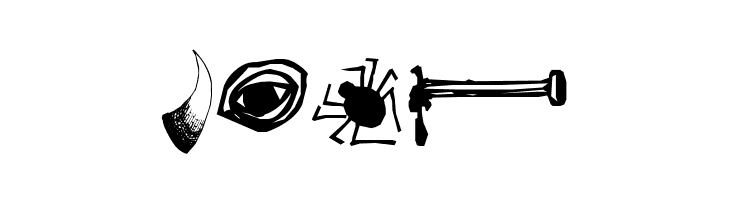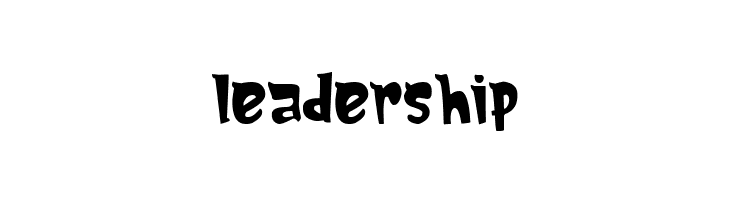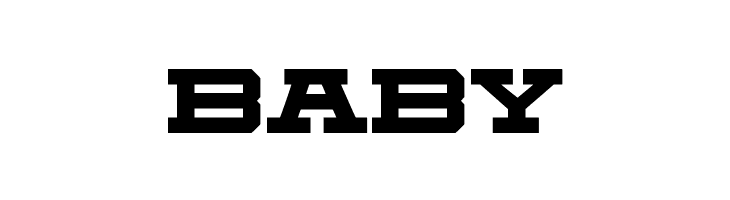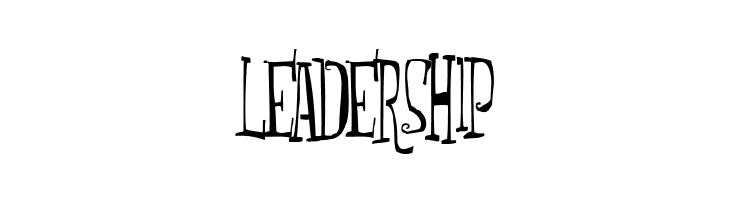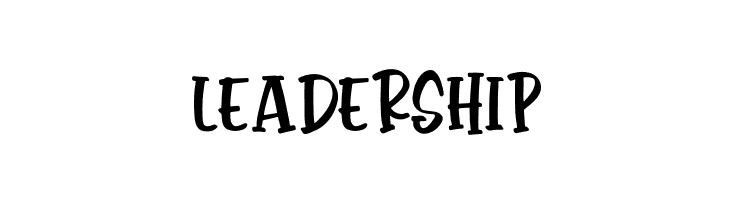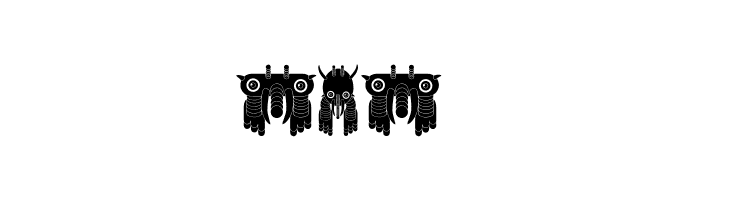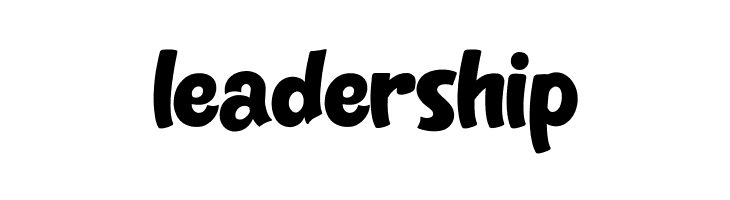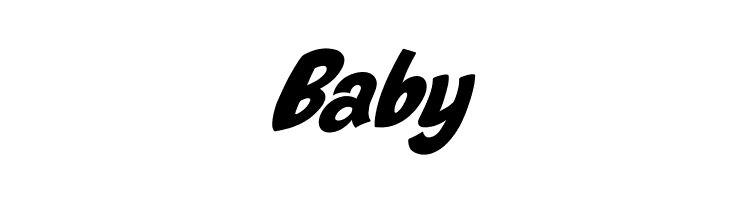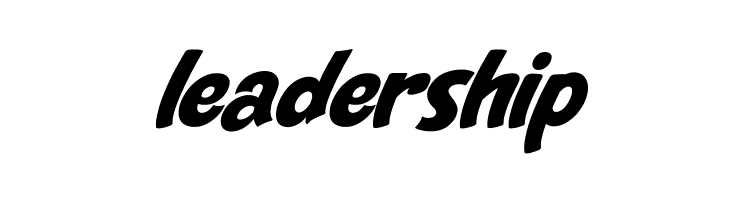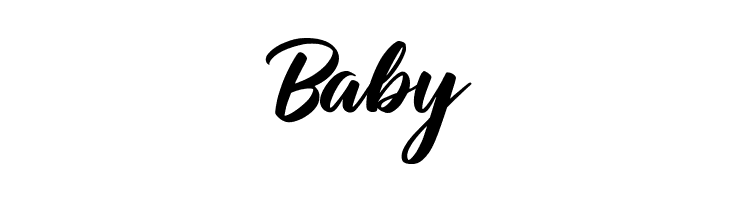
A bold, brush-style font with dynamic, textured strokes and an expressive, artistic appearance.
An elegant, flowing script font with a natural handwriting style.
Decorative swash element with a thin, elegant curve.
A bold, 3D font with a dripping, playful, and eerie style.
A jagged, spooky outline font with a playful, hand-drawn style.
A bold, jagged font with a horror-inspired, dripping effect.
A bold, hand-drawn font with a rough, textured, and artistic style.
A bold, expressive script font with flowing, cursive letterforms and dynamic slant.
A rugged, textured font with a hand-drawn, energetic style.
A bold, quirky font with elongated, irregular letterforms and a playful, eerie style.
A jagged, energetic font with a hand-drawn, chaotic style.
A playful, bold font with irregular, hand-drawn shapes and whimsical charm.
A bold, italic, and dynamic font with a strong sense of movement.
Bold, sketchy display font with a horror and playful theme.
A whimsical, monster-themed decorative font with intricate, fantastical elements.
A playful, monster-themed decorative font with intricate details.
A whimsical, monster-themed decorative font with intricate details.
A bold, spooky font with jagged, irregular characters perfect for horror themes.
Ornate, mythical, and architectural illustration-based font.
A creative set of monster-themed dingbats with detailed and varied designs.
A bold, jagged font with a rugged, hand-drawn style.
A bold, distressed font with a gritty, worn texture ideal for impactful designs.
A bold, distressed font with a rugged, worn texture.
A playful, monster-themed decorative font with unique character designs.
Ornamental symbol set with geometric and floral motifs.
Abstract geometric dingbat font with diverse shapes and patterns.
A playful, hand-drawn font with bold, rounded characters and a whimsical flair.
A playful, bold font with a hand-drawn, whimsical style.
A playful, spooky font with monster-themed decorative elements.